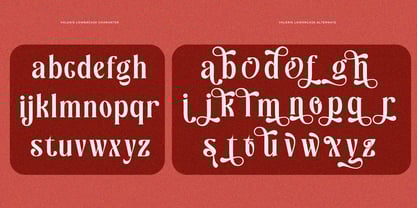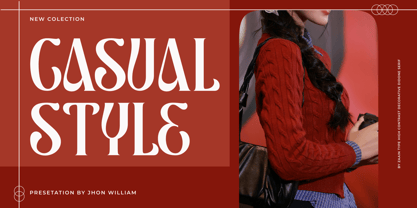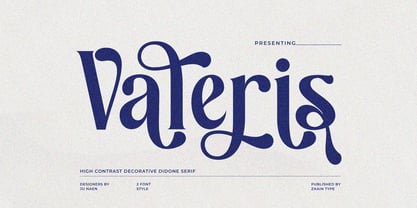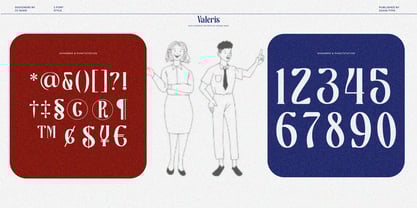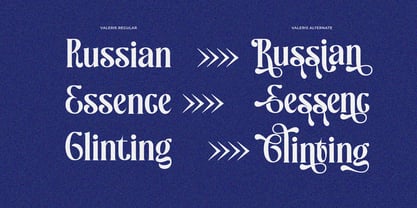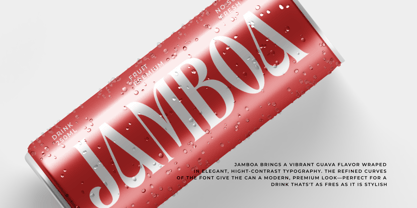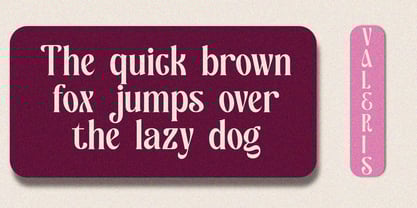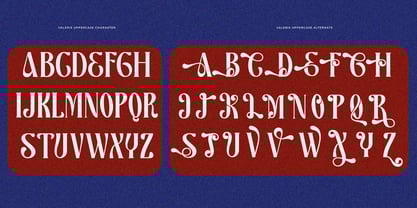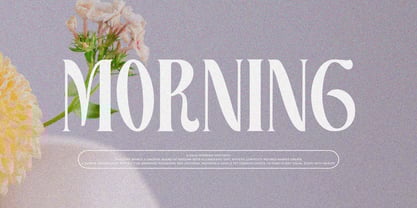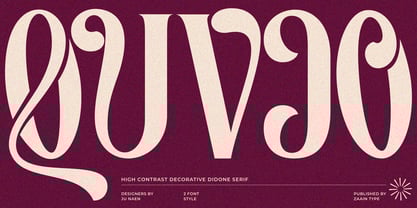
Valeris
by Zaain Type
The Valeris Font Family was designed by Ju Naen and published by Zaain Type. Valeris contains 2 styles and family package options.
Valeris is a modern serif font that blends classic elegance with a contemporary touch. Each letter is crafted with gentle contrast, smooth curves, and crisp serif details that feel refined yet soft. Its characters create a premium impression, making Valeris perfect for luxury branding, editorial design, packaging, and headlines that require a polished and sophisticated look. With balanced proportions and a clean aesthetic, Valeris delivers an elegant feel that fits seamlessly into various design concepts—ranging from fashion and beauty to creative projects that need a timeless and stylish serif